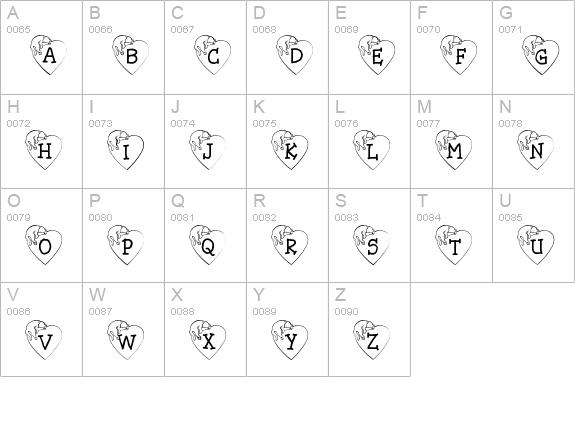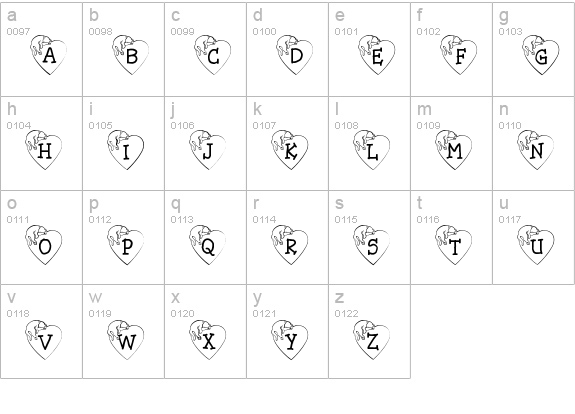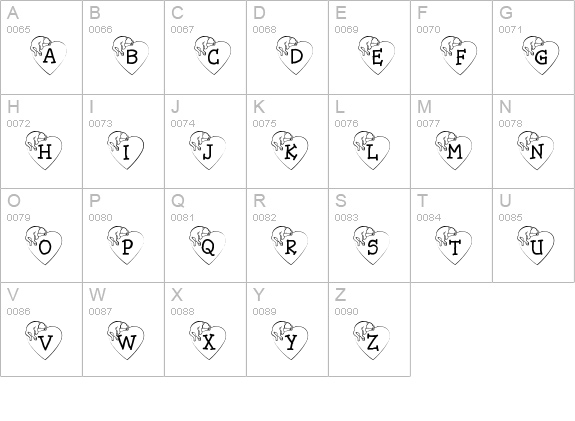
JLR Cat Nap Font Details
Introducing JLR Cat Nap font, a whimsical and enchanting typeface that will transport you to a world of feline dreams. This unique font captures the essence of a cat's serene and peaceful slumber, bringing a touch of tranquility to your designs. With its delicate strokes and graceful curves, JLR Cat Nap font exudes a sense of elegance and charm. Each letter is meticulously crafted to resemble a cat's graceful posture, as if it were peacefully curled up for a nap. The intricate details and playful design elements make this font truly captivating. Whether you're designing invitations, greeting cards, or adding a touch of charm to your branding, JLR Cat Nap font is the perfect choice. Its versatility allows it to be used for a variety of projects, from children's books to whimsical logos. But what sets JLR Cat Nap font apart is that it is freely available to download at FontsMarket.com. Yes, you heard right – this enchanting font is absolutely free! Now you can add a touch of feline magic to your designs without breaking the bank. So why wait? Let your creativity roam and bring your designs to life with JLR Cat Nap font. Download it for free at FontsMarket.com and let the dreams of these peaceful feline slumbers inspire your next project.